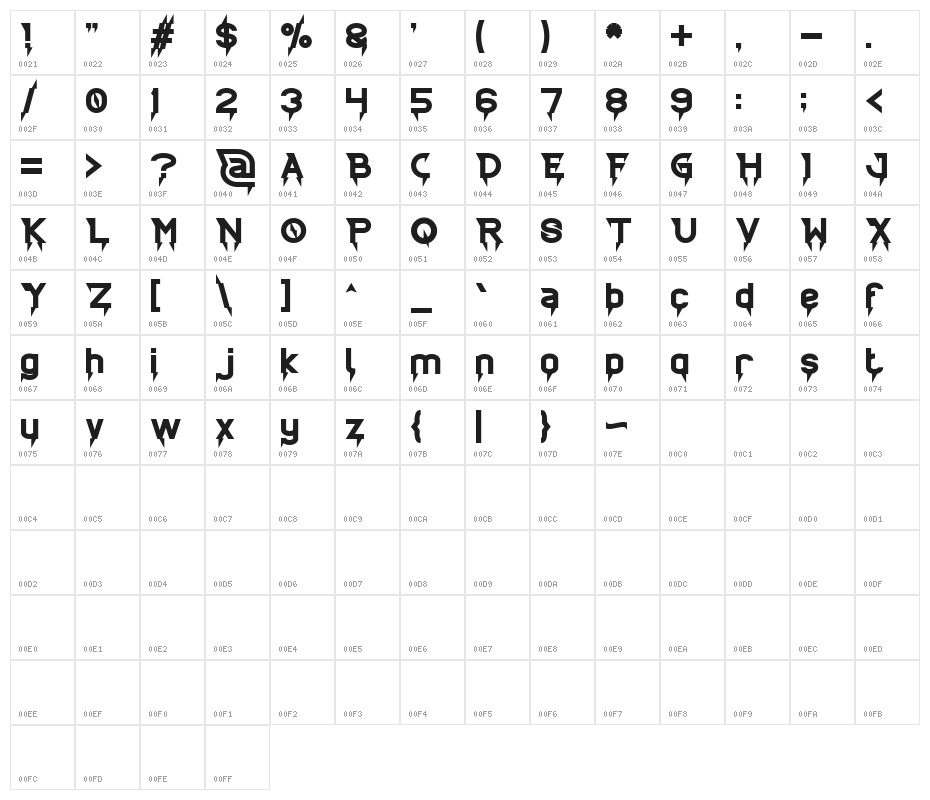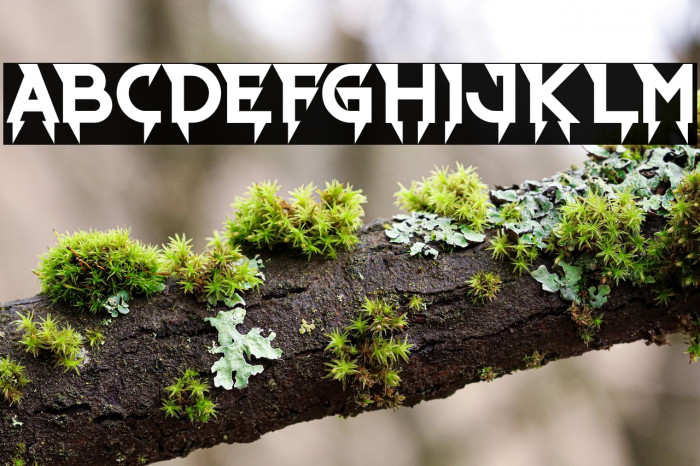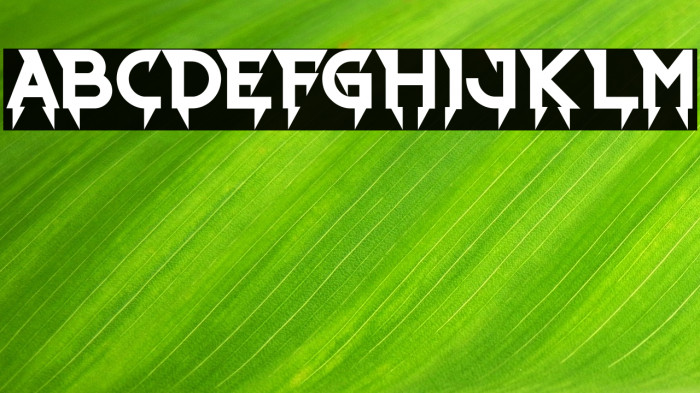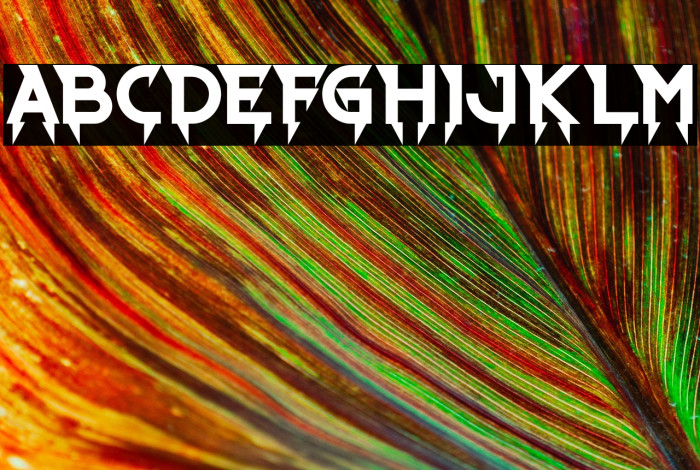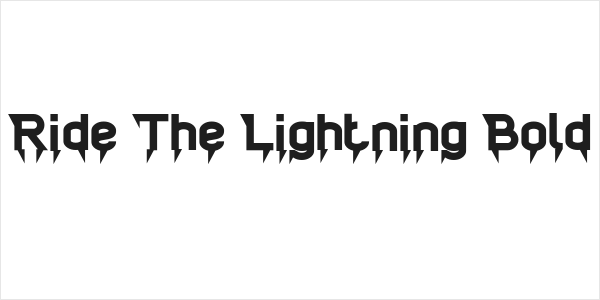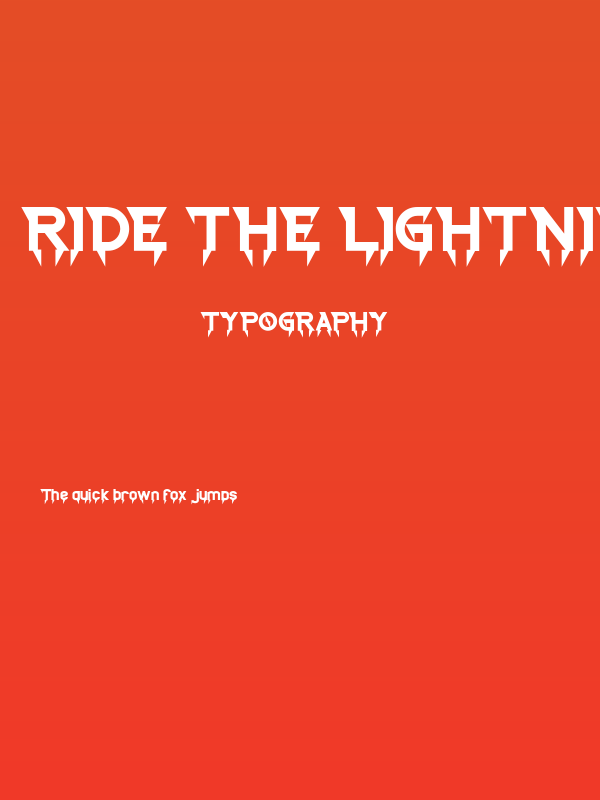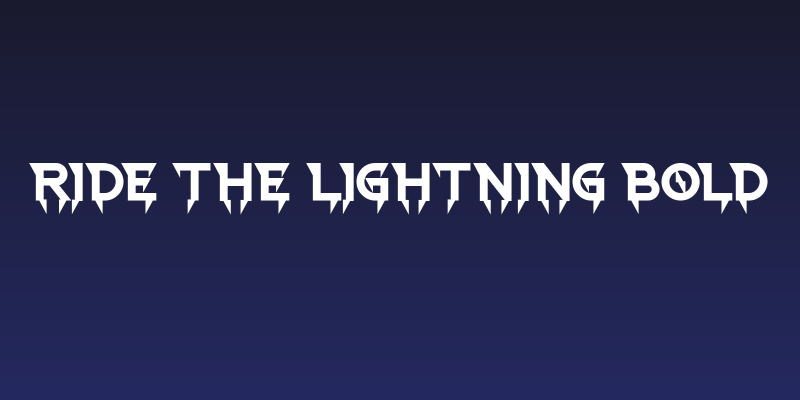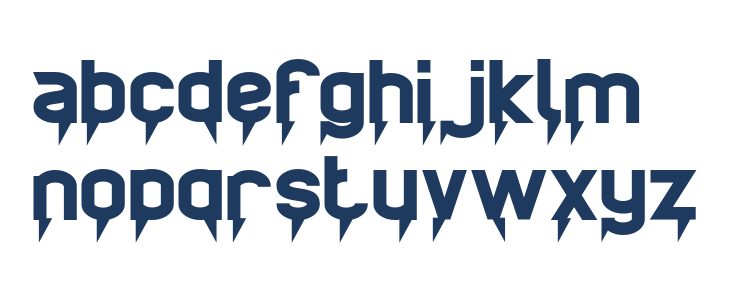
Ride The Lightning Bold Font
Ride The Lightning Bold Description
This font features a bold and electrifying design, characterized by sharp, angular edges and a dynamic, energetic style. The uppercase letters are particularly striking, with jagged extensions that evoke a sense of movement and power, reminiscent of lightning bolts. The lowercase letters maintain a more streamlined appearance, balancing the overall aesthetic with a touch of modernity. The numerals and special characters follow the same bold and edgy theme, ensuring consistency across all glyphs. This font is perfect for projects that require a strong, impactful visual presence.
| Overall Style | Modern, Energetic |
| Proposed Projects | Ideal for music album covers, event posters, sports branding, and any project needing a powerful visual impact. |